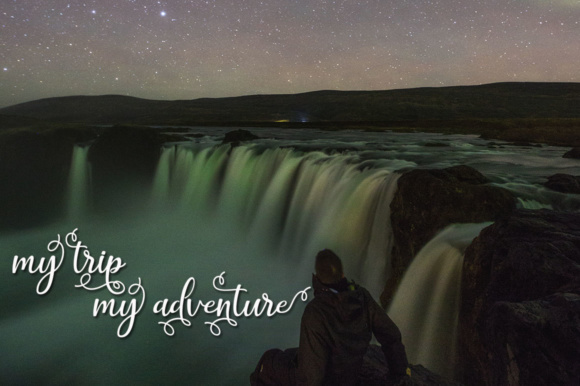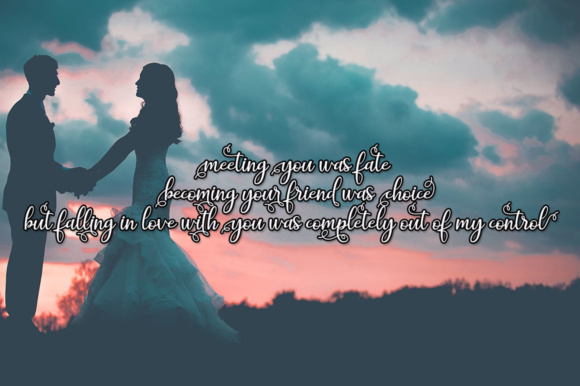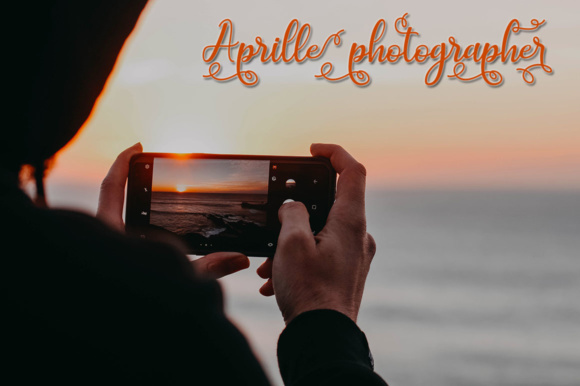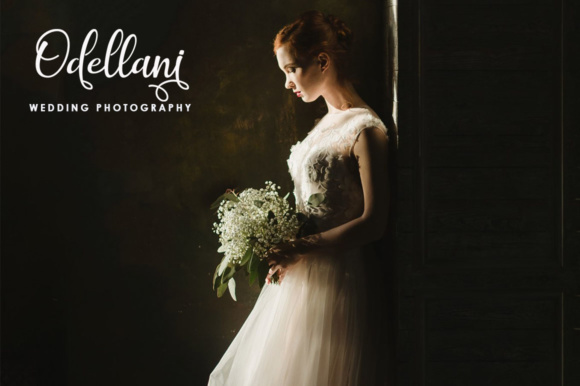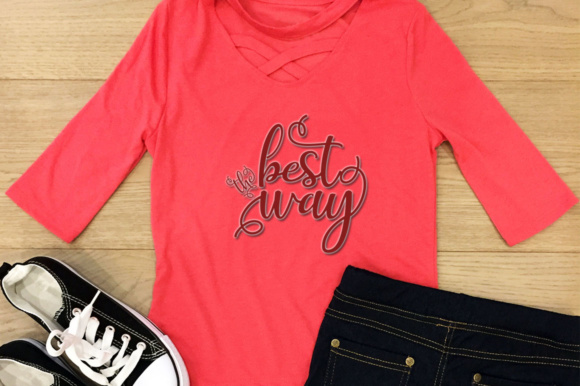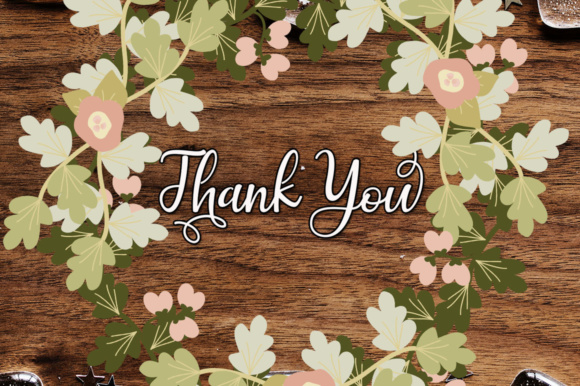
Introduction to Maitlyn Script Font
As a designer, have you ever found yourself stuck in a creative rut, searching for the perfect font to elevate your project? The struggle is real, but what if I told you there’s a solution that can make all the difference? It’s a font that’s both vintage and clean, perfect for adding a touch of elegance to your work. Introducing the Maitlyn Script Font, a beautiful and legible script that’s about to become your new go-to design resource.
With its high-quality design and transparent background, the Maitlyn Script Font is a valuable asset for any designer. Whether you’re working on a creative project or simply need a reliable font for your next design, this font is sure to impress. And the best part? It’s available for free download, making it an accessible design resource for designers of all levels.
Key Features of Maitlyn Script Font
- High-quality, elegant script font perfect for creative projects requiring a sophisticated touch.
- Features a transparent background, making it ideal for use on any design resource, including logos, invitations, and social media graphics.
- Designed to be highly legible, even at small font sizes, making it perfect for use in a variety of design contexts.
- Includes a range of characters, including uppercase and lowercase letters, numbers, and punctuation marks, ensuring you have everything you need to complete your design project.
Honest Review: Maitlyn Script Font
I recently had the chance to work with the Maitlyn Script Font for a creative project, and I must say it was a fantastic experience. As a designer, I’m always on the lookout for high-quality design resources that can elevate my work. The Maitlyn Script Font did not disappoint.
- Beautiful, elegant feel
What doesn’t work so well: ⚠️ While the Maitlyn Script Font is generally a great choice, I did find it to be a bit on the heavier side. This can make it difficult to read in smaller font sizes. Additionally, the font may not be the best choice for projects that require a lot of text, as it can be a bit slow to render.
Overall, I’m very impressed with the Maitlyn Script Font. It’s a fantastic addition to any designer’s toolkit, and I highly recommend it for any creative project that requires a touch of elegance and sophistication.
Maitlyn Script Font is commonly used in:
- Brand logos and marketing materials.
- Event banners and signage.